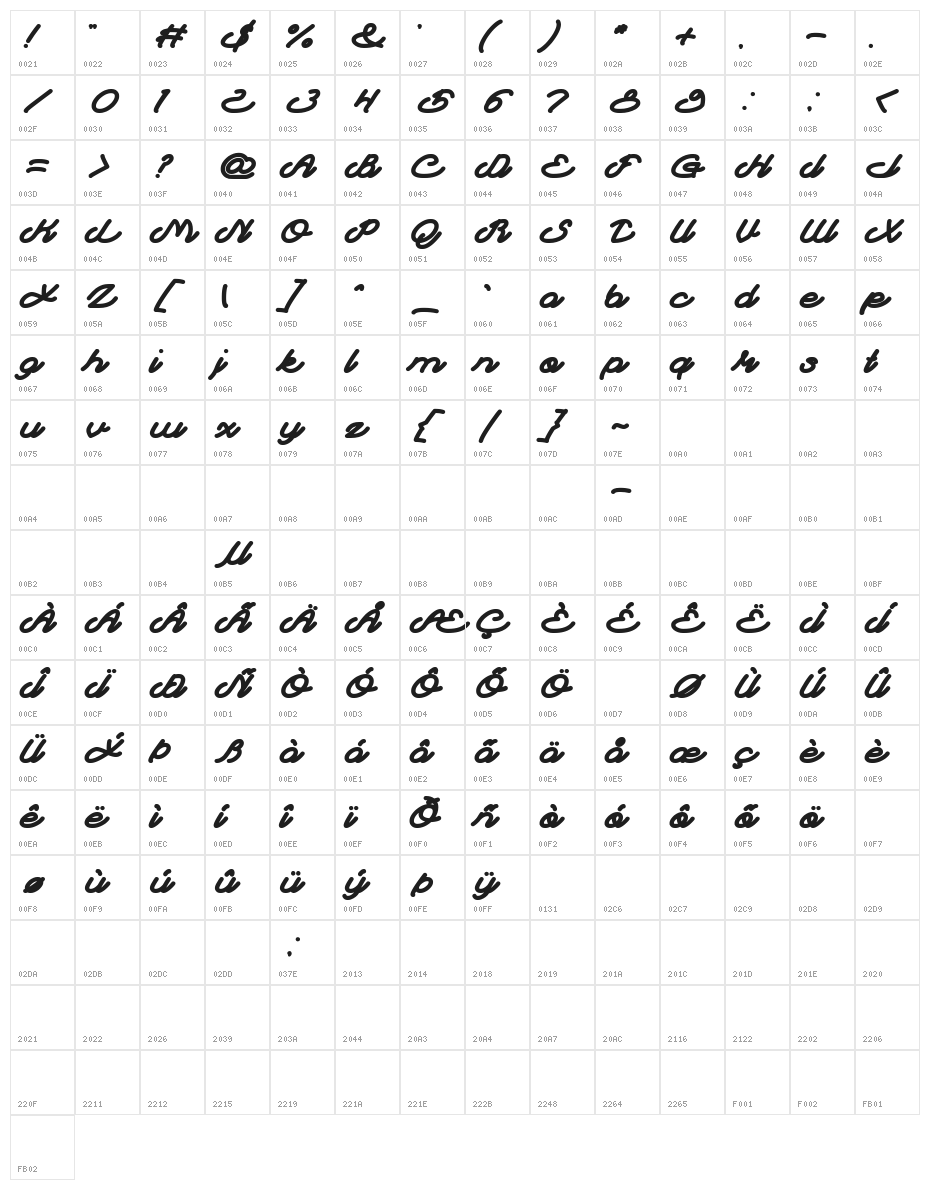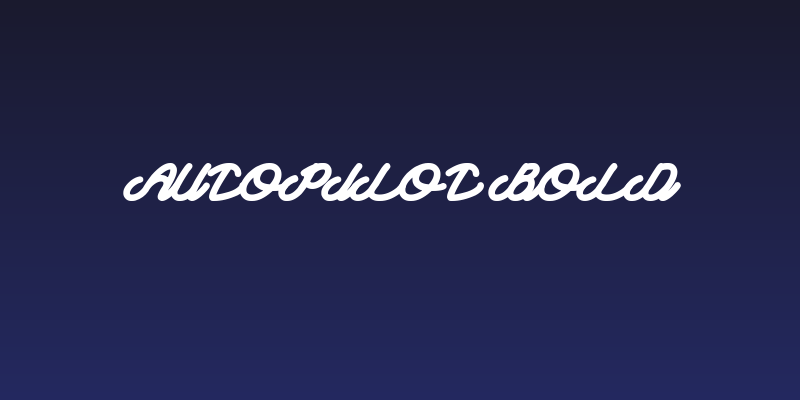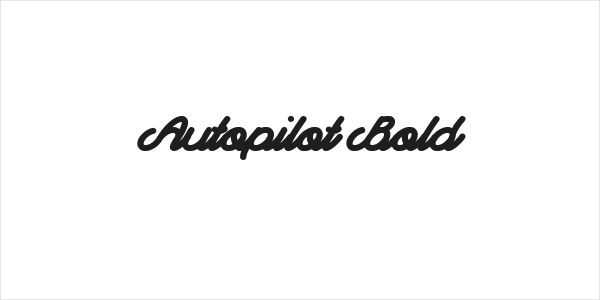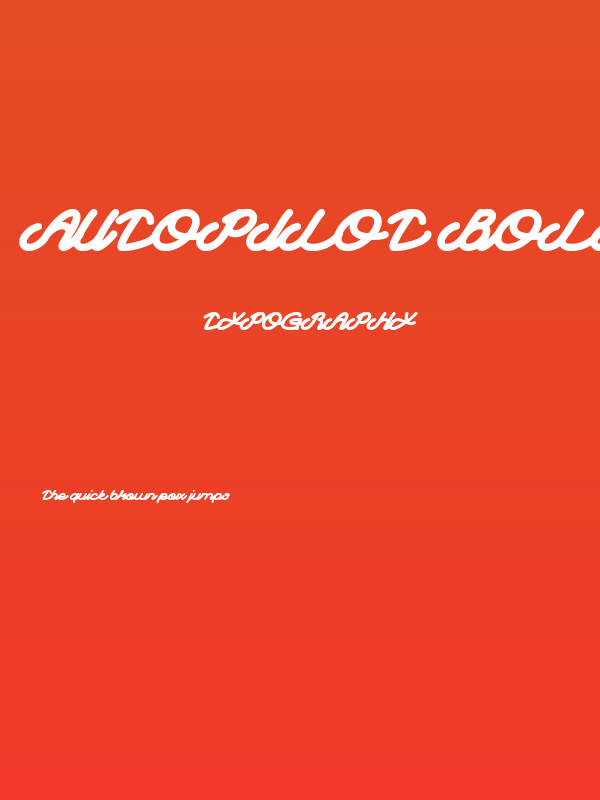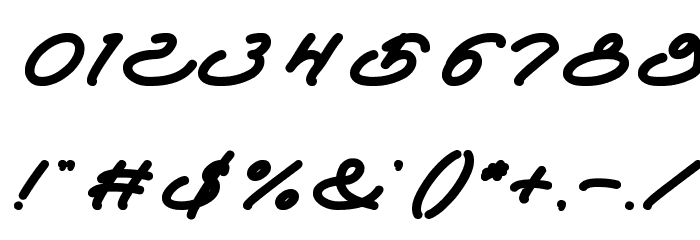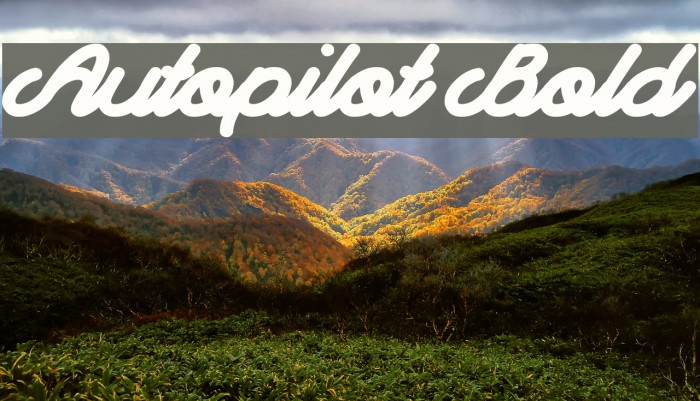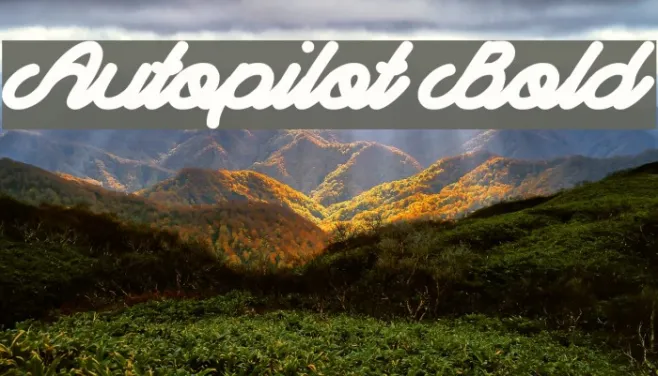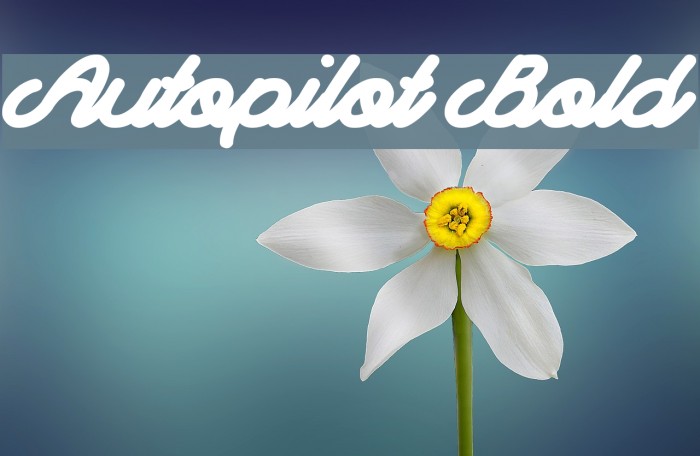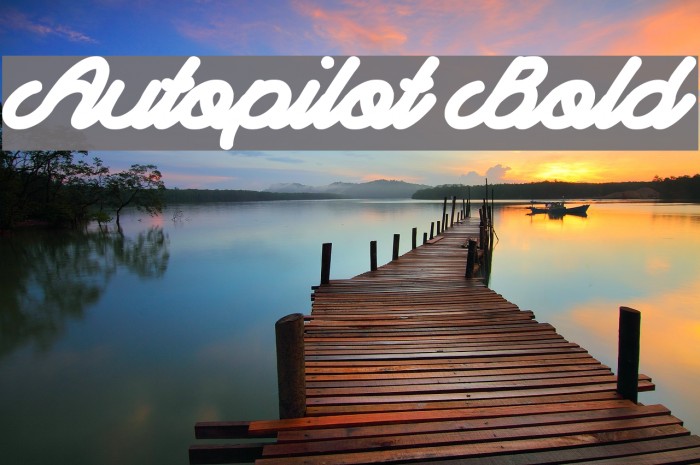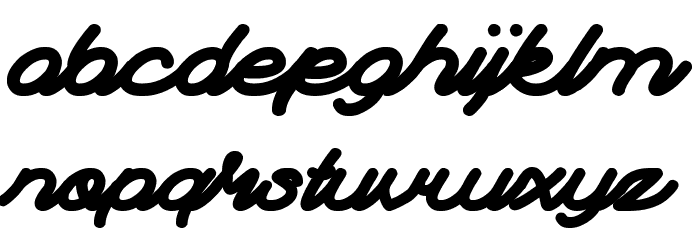
Autopilot Bold Font
Autopilot Bold Description
This font features a bold, cursive style with smooth, flowing lines that create a sense of movement and elegance. The characters are connected, giving it a handwritten appearance that is both stylish and legible. The uppercase and lowercase letters maintain a consistent slant, enhancing the script-like quality. The numbers and special characters are designed to match the overall aesthetic, ensuring a cohesive look across all text. The bold weight adds a strong presence, making it suitable for attention-grabbing headlines or impactful logos. Despite its boldness, the font retains a certain grace and fluidity, making it versatile for various design needs.